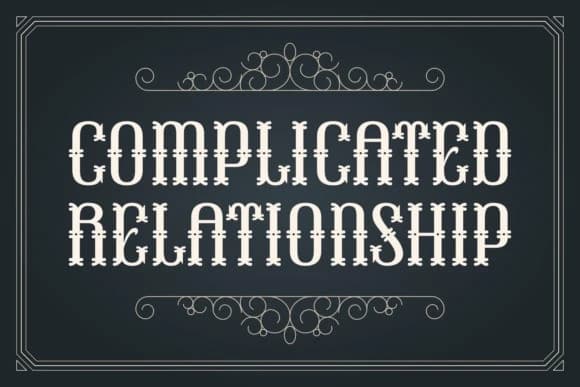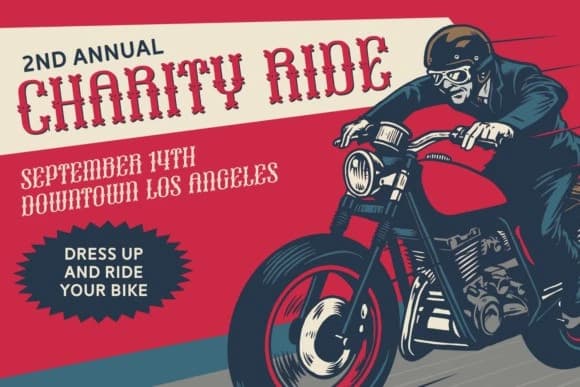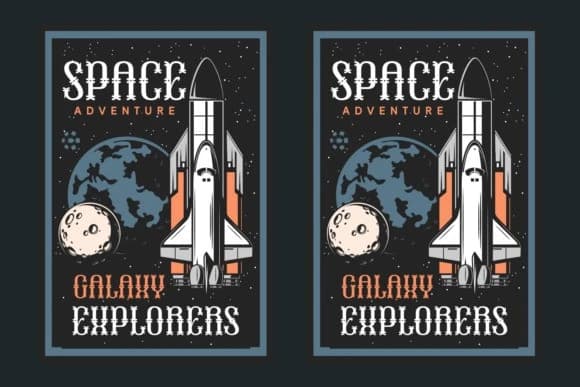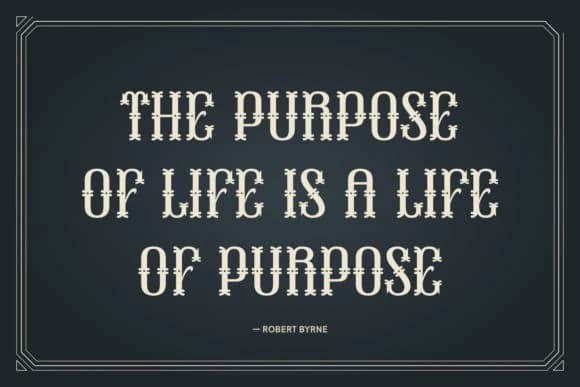
Complicated Relationship Font
Complicated Relationship Font is a captivating Blackletter font, exhibiting an unmissable vintage elegance and refined cleanliness. This artistic font is intricately crafted and excels in a variety of applications – it’s the perfect choice for adding a unique touch to your website or magazine.